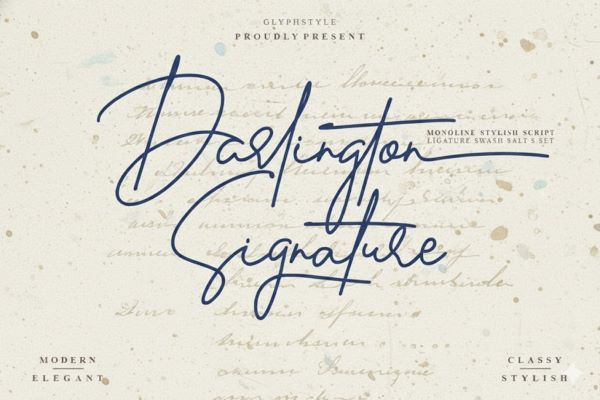
Darlington Signature
Darlington Signature Font
Darlington Signature Font is an elegant signature-style script typeface with smooth, flowing strokes and natural handwriting charm. It’s ideal for logos, personal branding, invitations, social media graphics, and luxury designs that call for a stylish, authentic, and handwritten feel.
➤ Font Name: Darlington Signature
➤ Designer: GlyphStyle
➤ Style: Signature